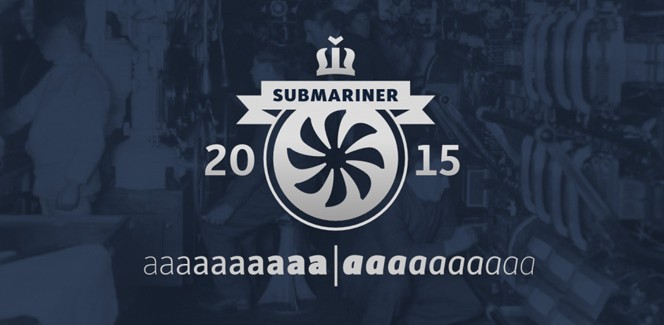
Submariner
Submariner is the latest font family released by the Slovenian designer Marin Šantić. Marin – a very talented professional with serious background in the fields of typography, type design, branding and identity tools, has already published some very successful fonts like Rusulica Script and Rusulica Scripts Antique that Fontmatters team has already reviewed. Now it is the turn of Submariner – a modern font family that is designed with two purposes in mind – elegance and functionality. In fact, Submariner font is designed to work greatly in tight spaces in order to provide as much information as possible. An as so many ingenious things, this typeface is really simple, unostentatious and rigid in construction. Great attention is paid to every detail, with the letterforms being drawn with utmost precision, with the purpose to make Submariner look friendly, solid and harmonious and to offer the perfect legibility. It makes it a great workhorse like font family suitable for many applications like in longer texts, all kinds of reports, information graphics, headers, inscriptions and, generally, as was noted above, in cases where as much information as possible has to be filled in the tiniest space available.
Submariner font family is supplied in 10 weights – Thin, Extra Light, Light, Regular, Book, Medium, Bold, Extra Bold, Black and Heavy. Each weight comes with its true Italics in which the letters are slanted at a 9° angle. Many OpenType features are provided too – Small Caps, OldStyle Figures, Lining Figures, Fractions, Superiors and Inferiors, etc. The language support is also rich enough with Western, Eastern, Central European as well as Baltic and Turkish.